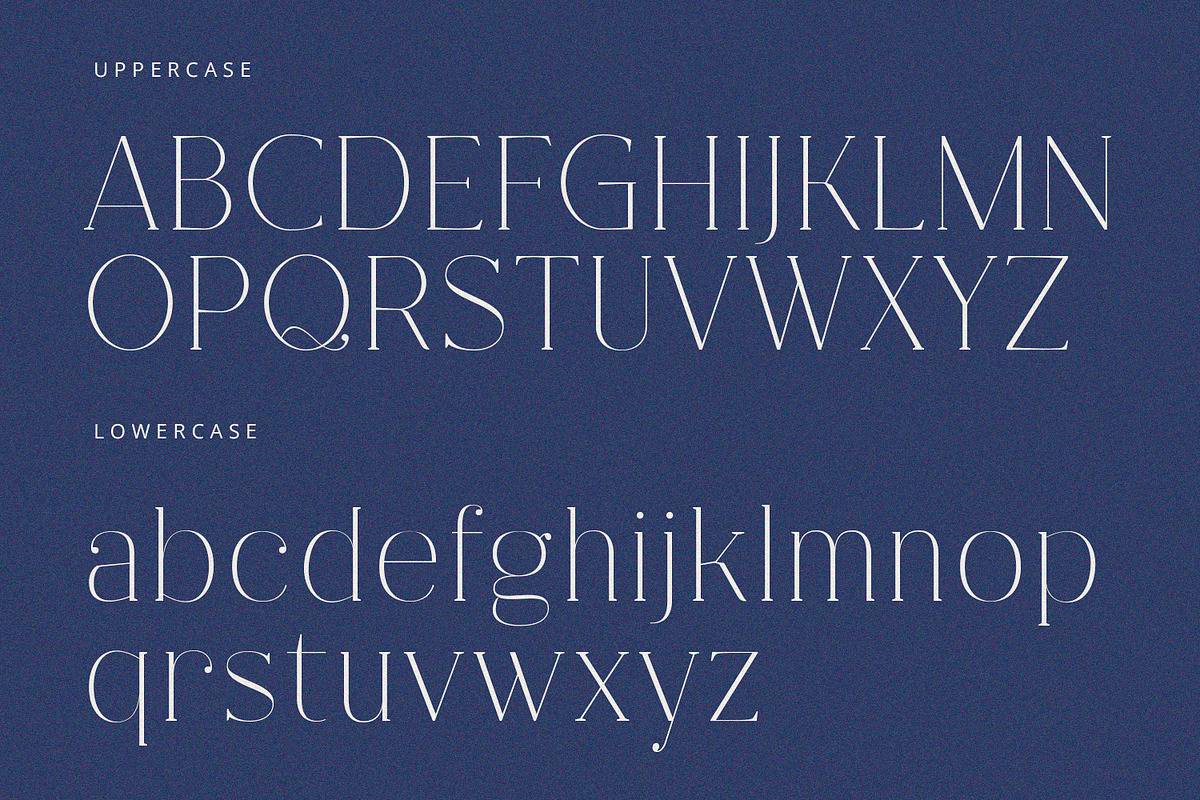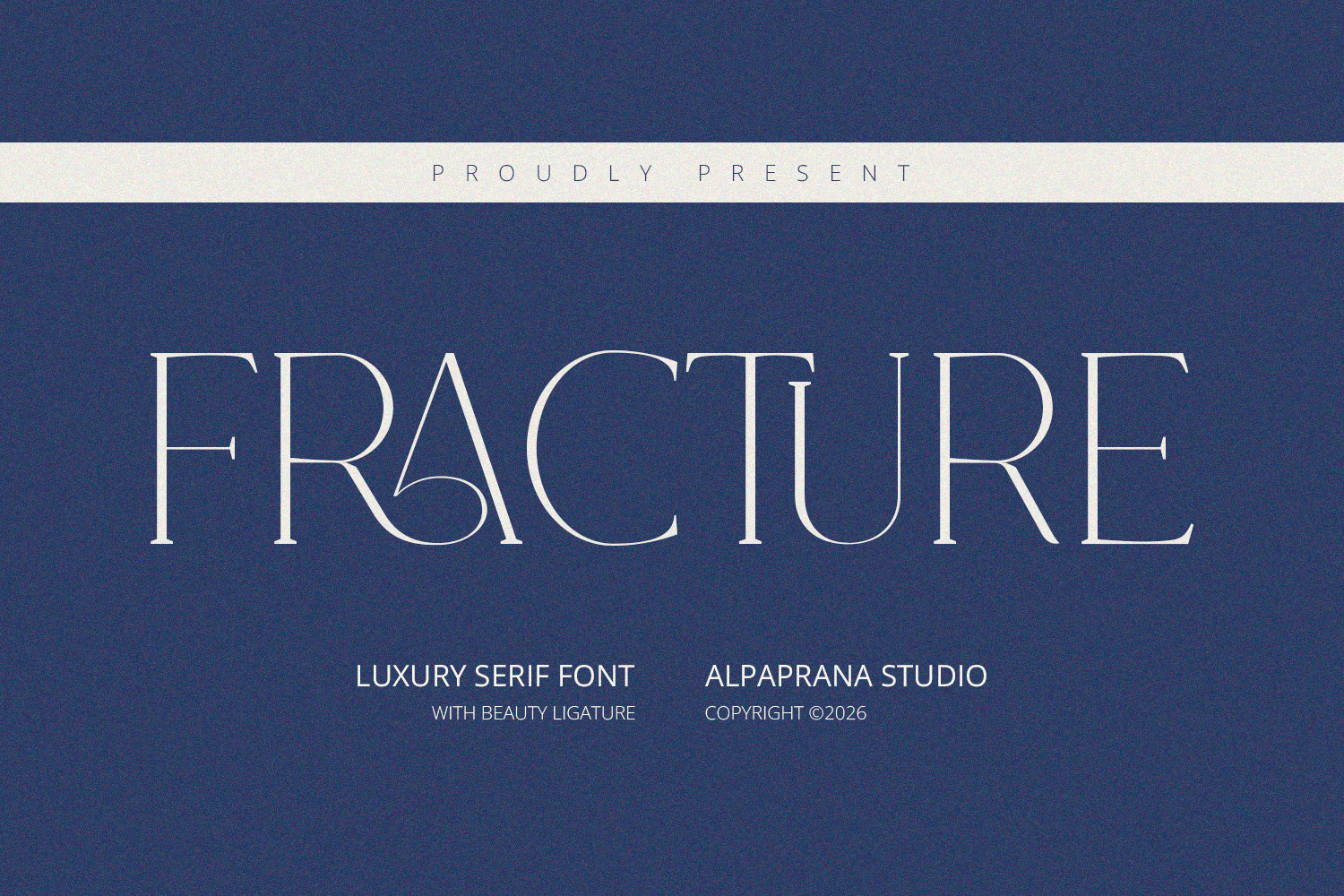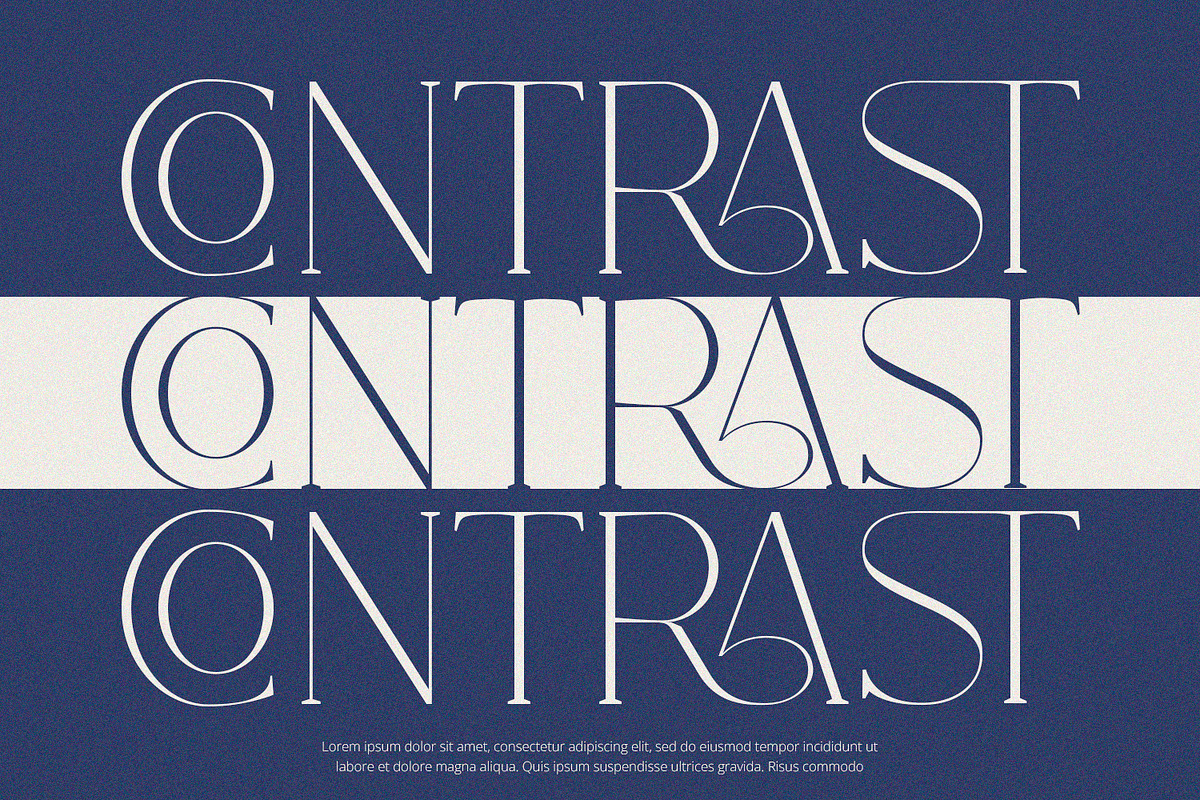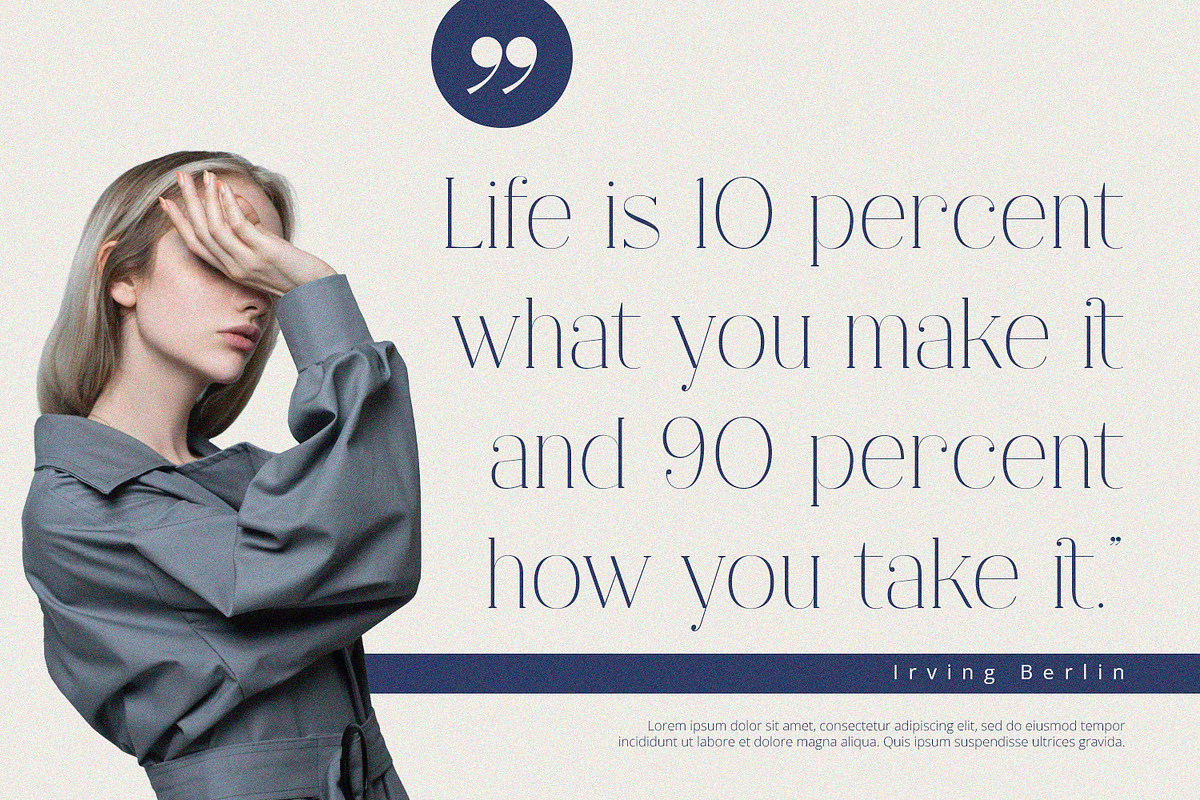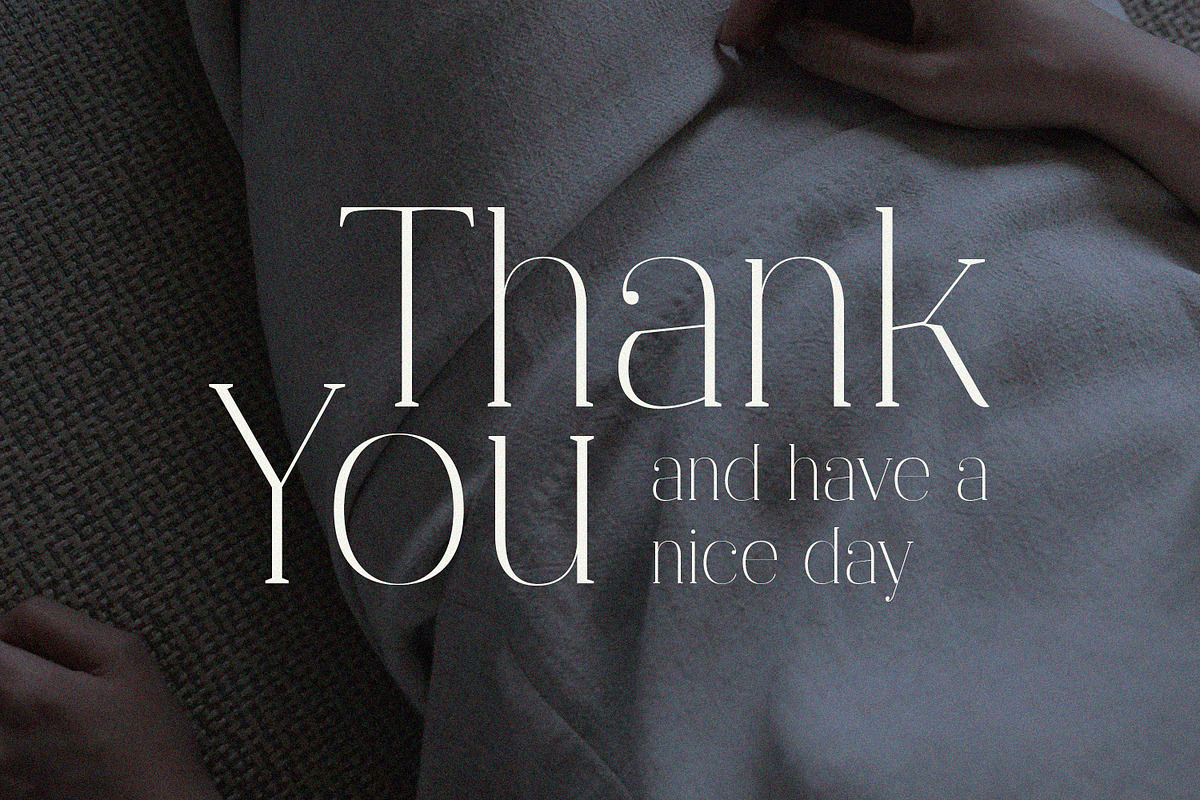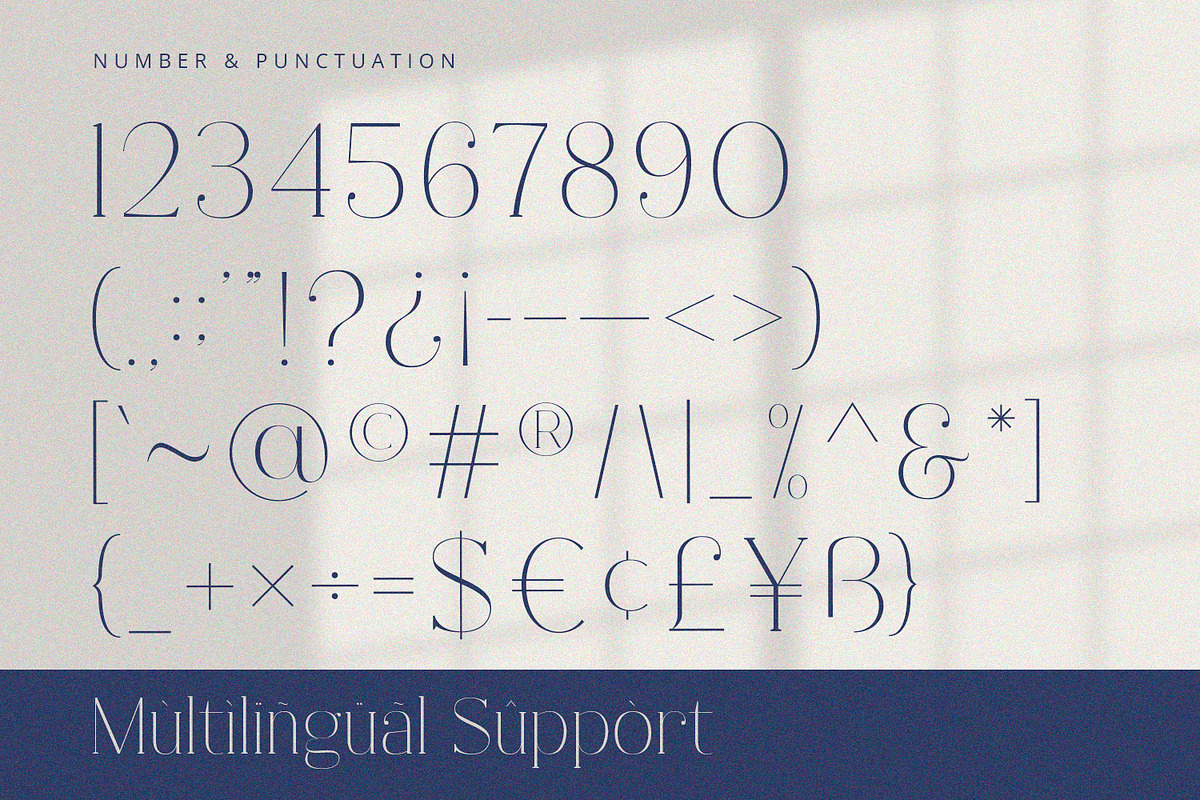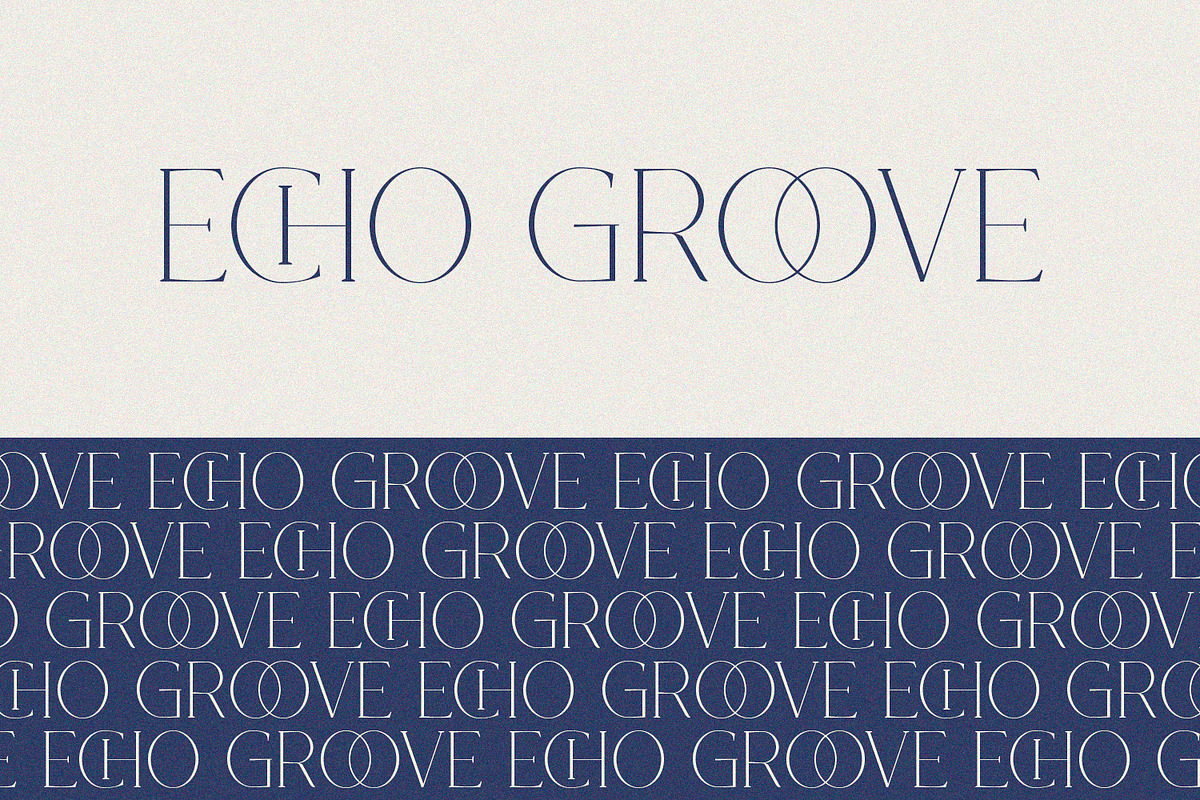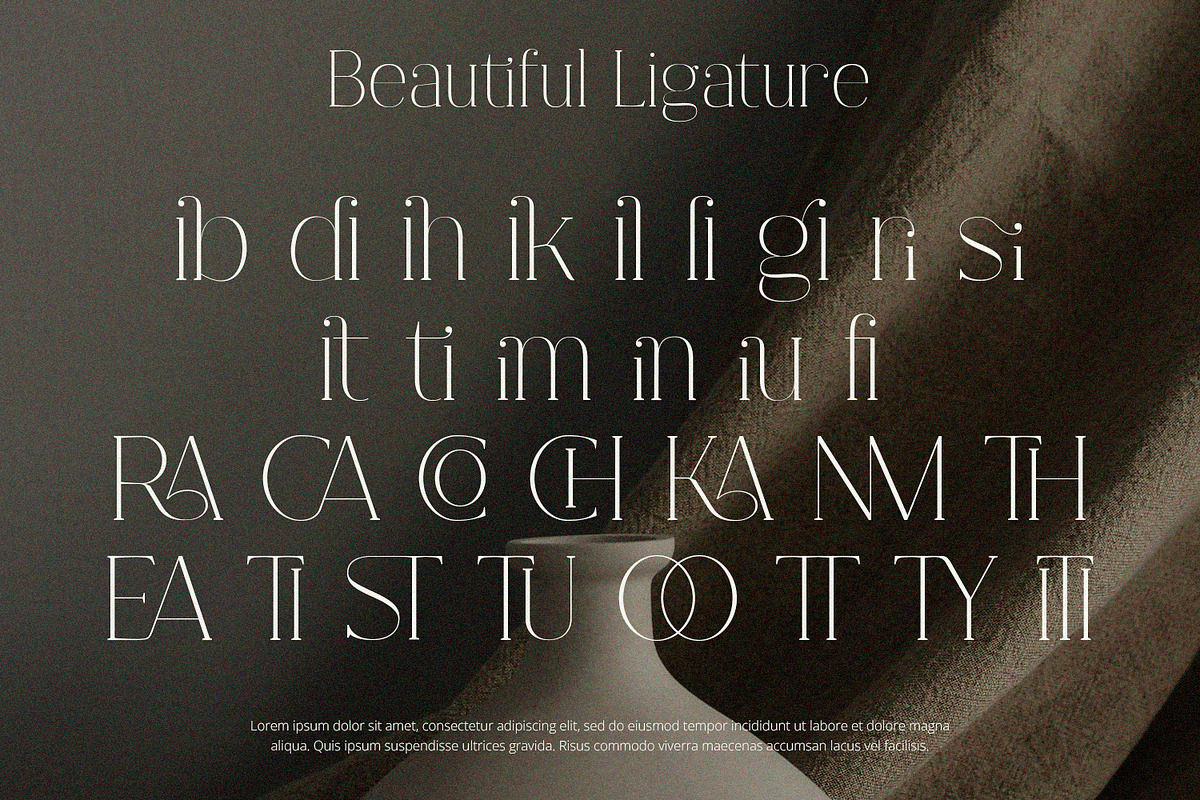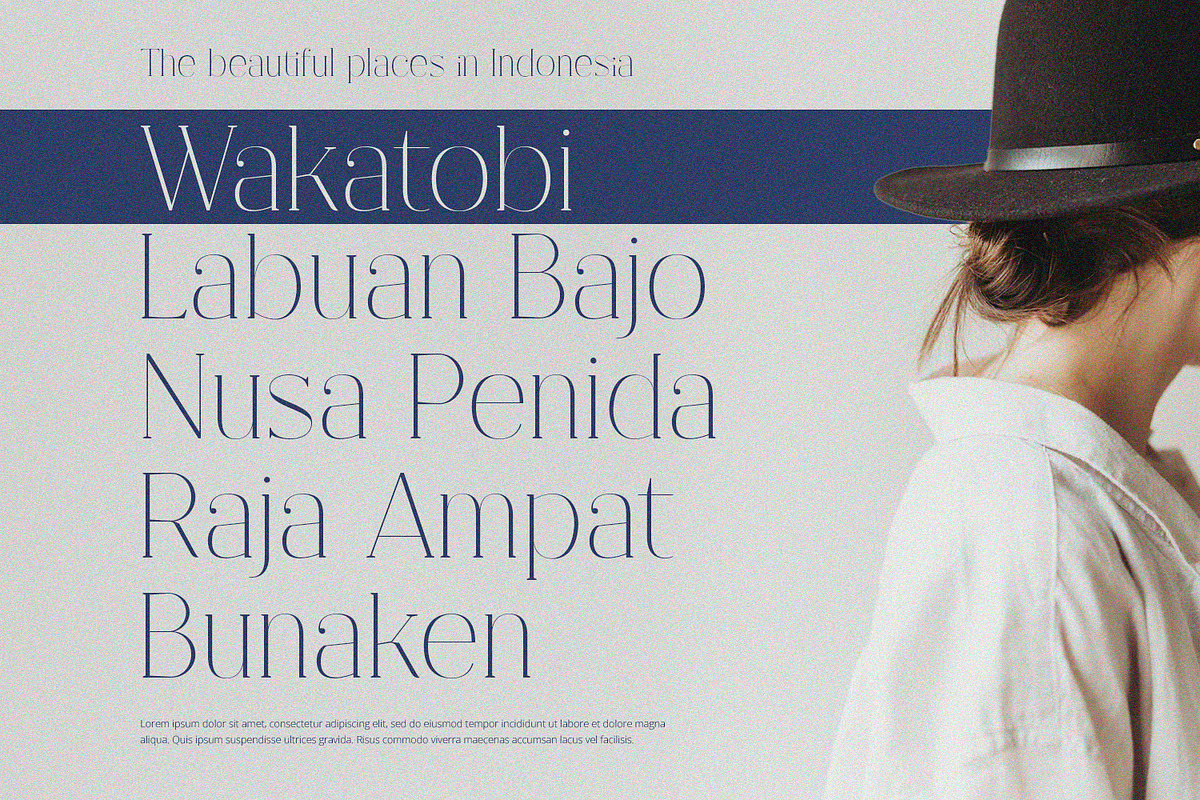
Fracture - Serif Font
Fracture is serif font with modern feels. It will be perfectly used for Branding, Logo Design, Lettering, Logotype, Clothing, Poster, magazine, packaging, posters, shopping bags, t-shirts, book covers, photography, special events and other design project.